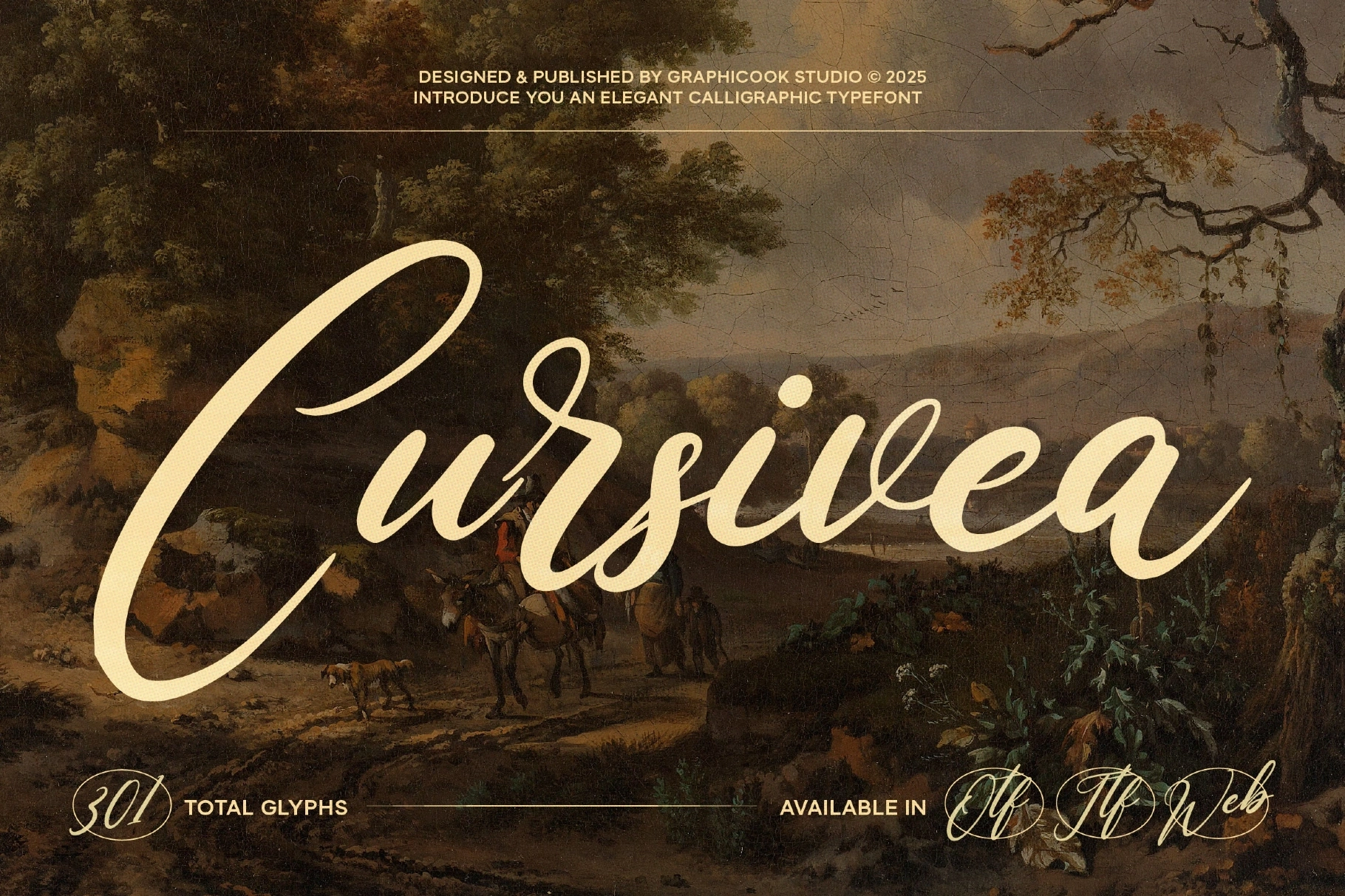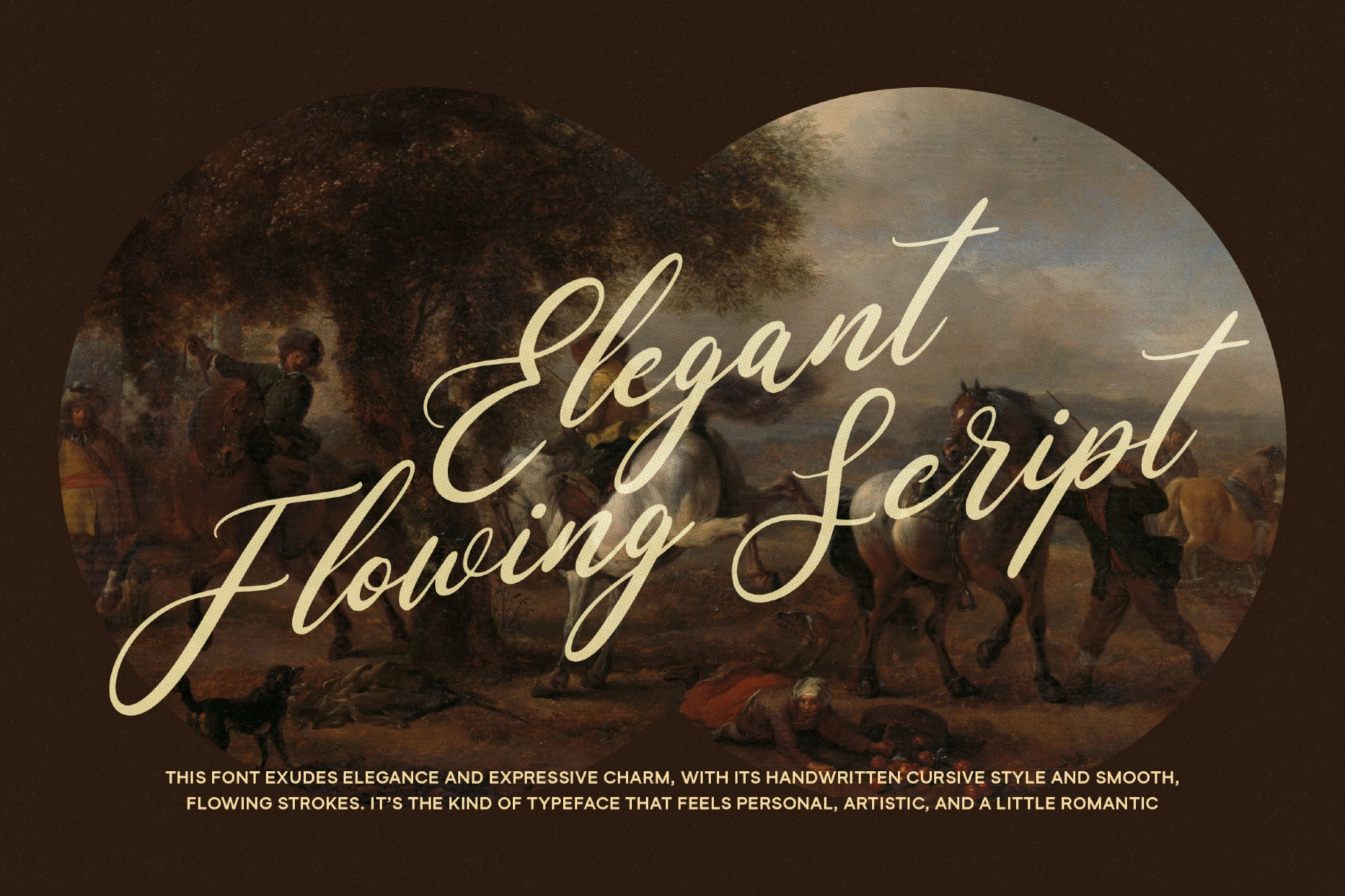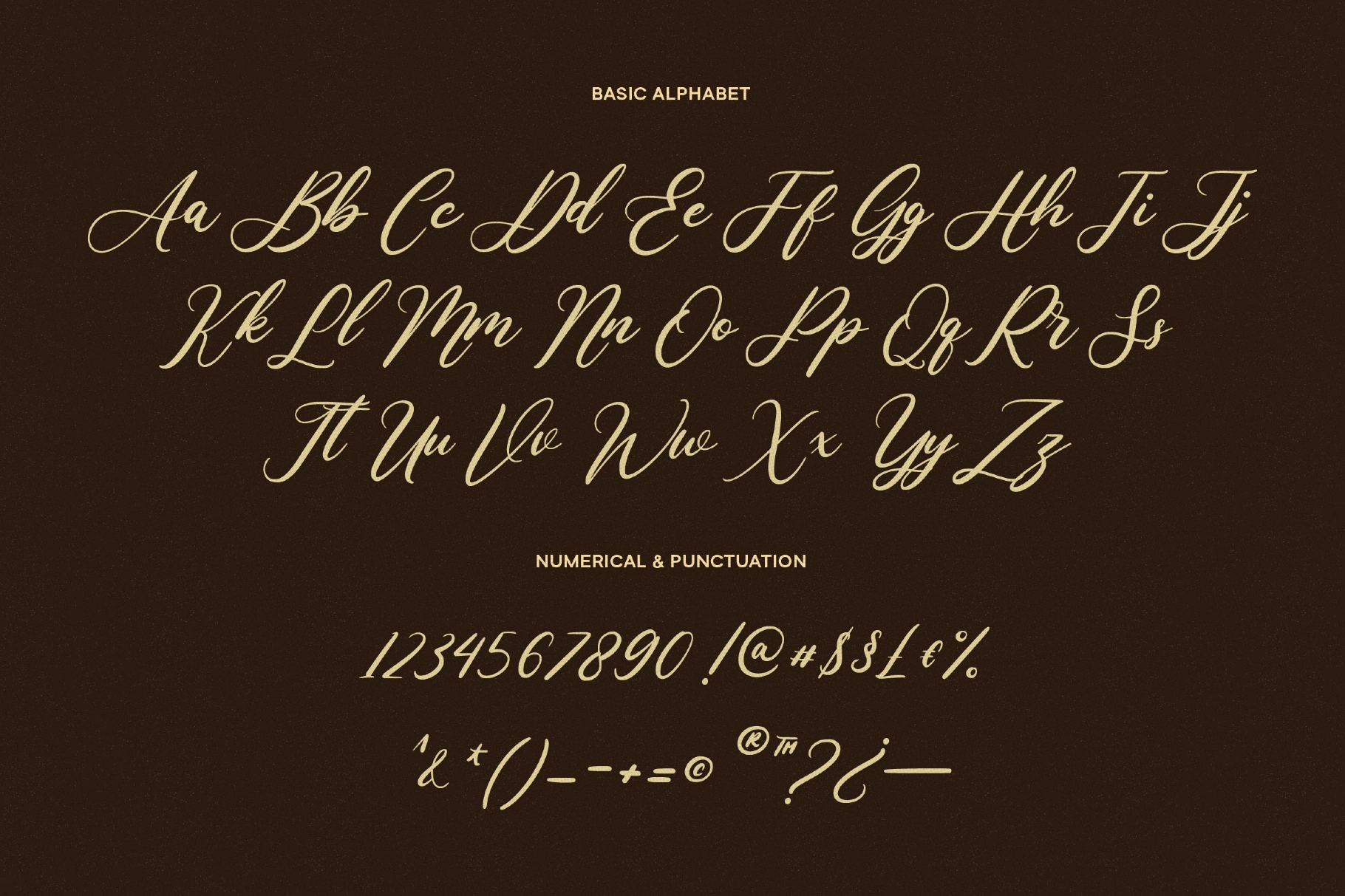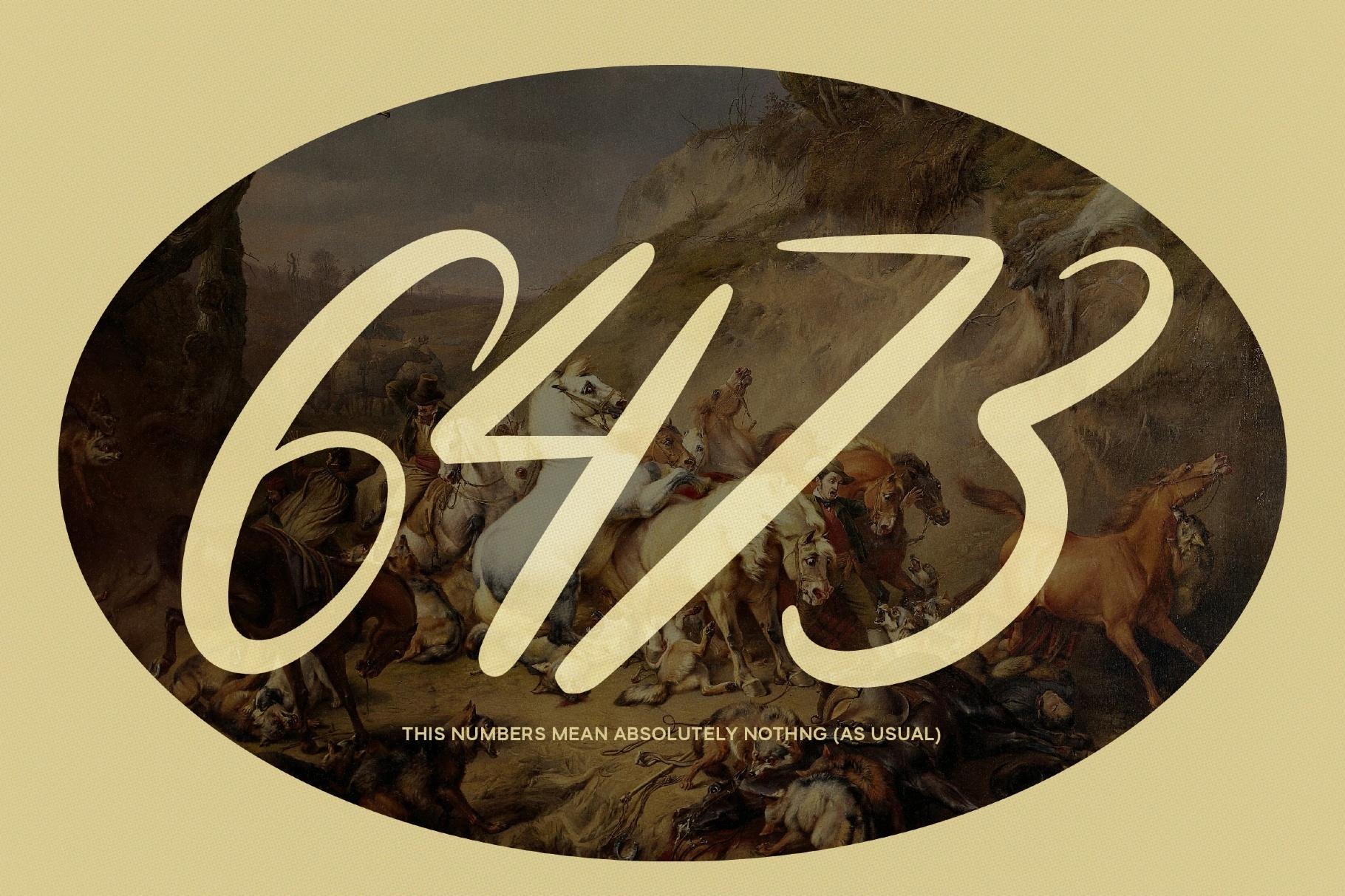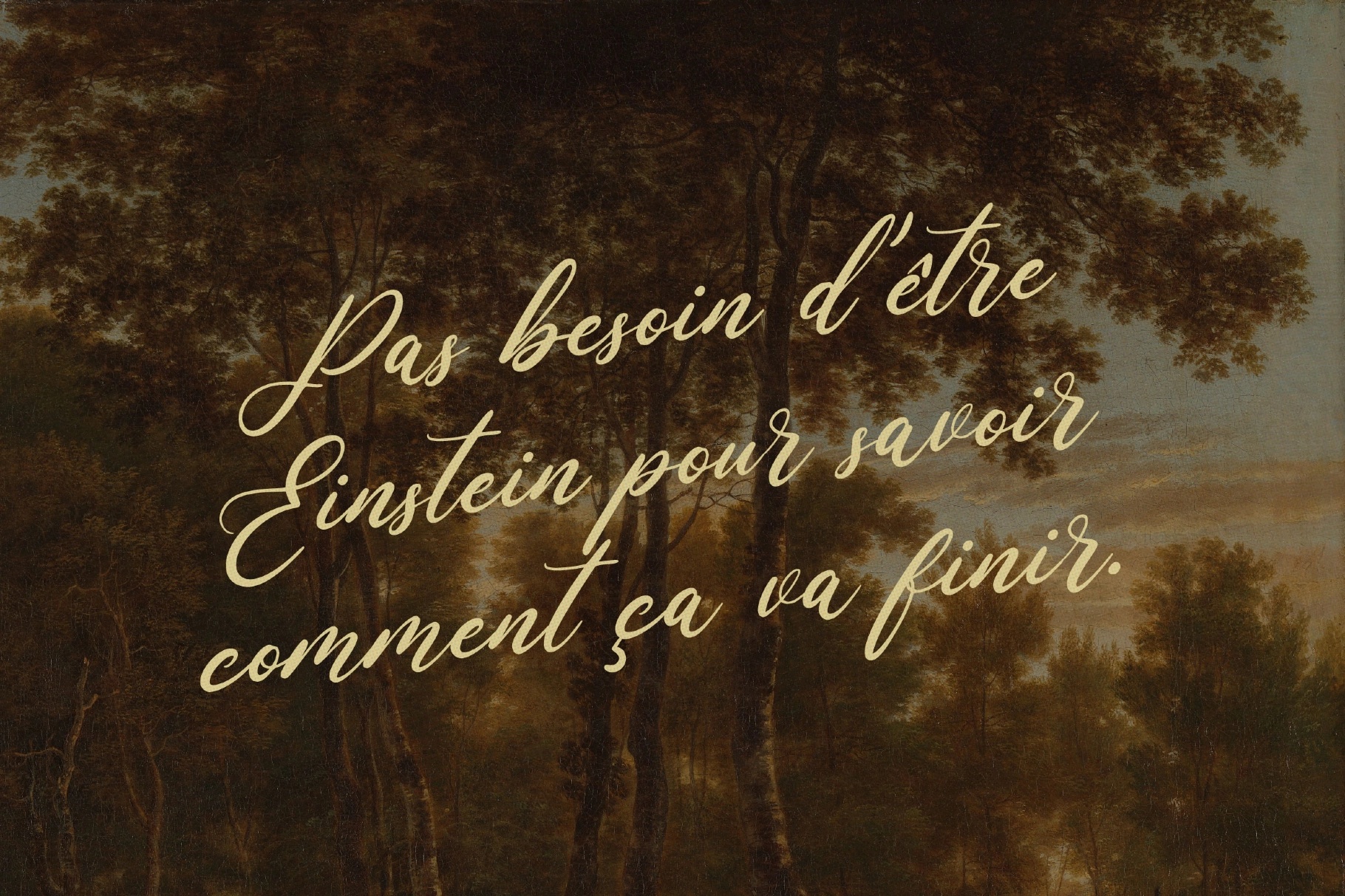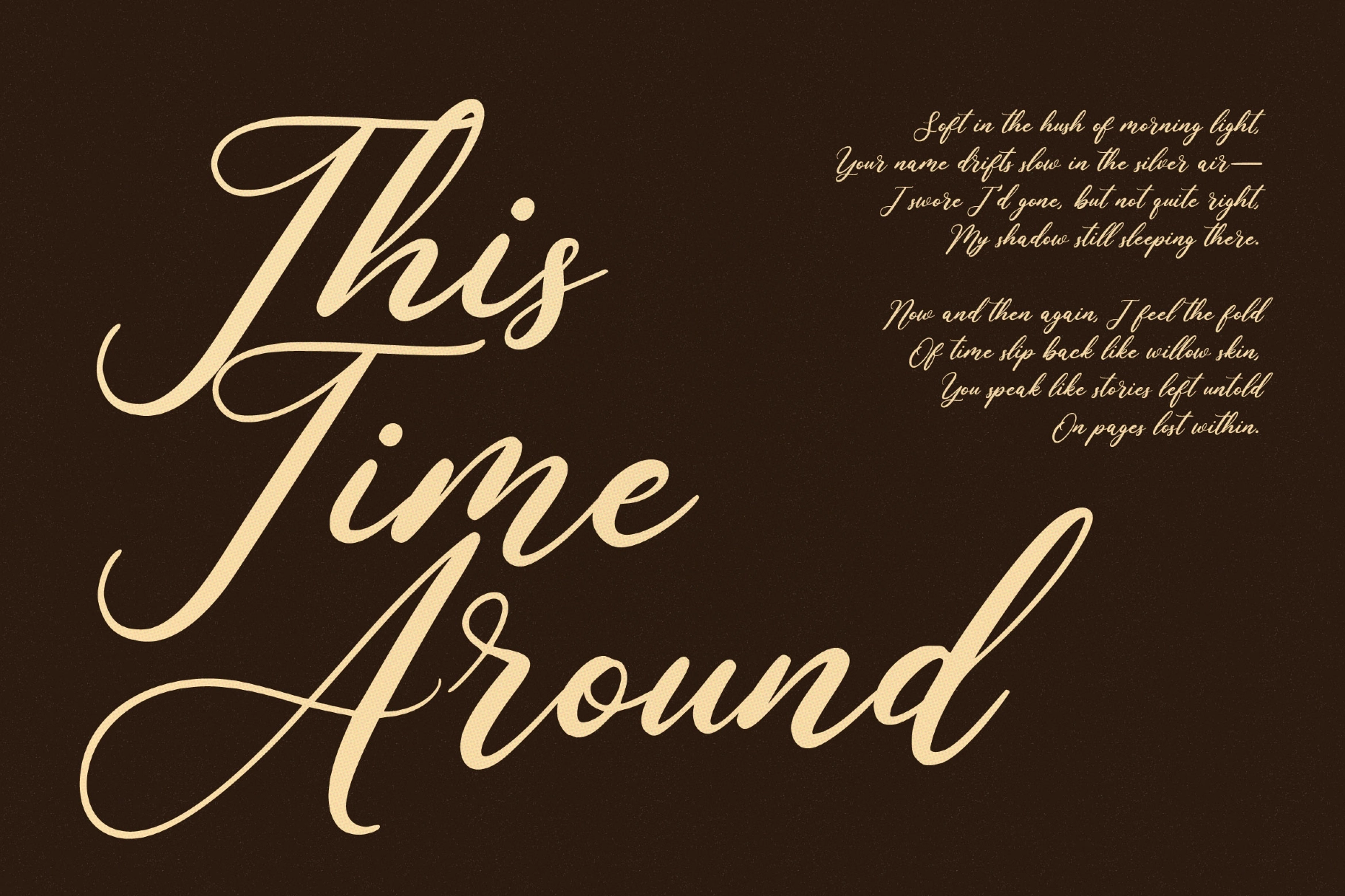
Cursivea Font
Cursivea
Cursivea is a script font with elegant, pen-like strokes that create a classic handwritten impression. Ideal for wedding invitations or vintage-themed designs.